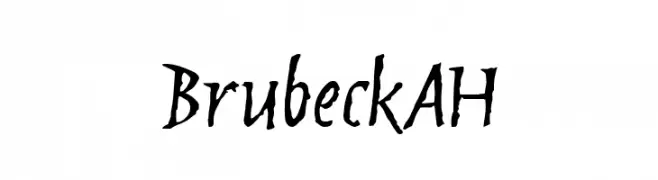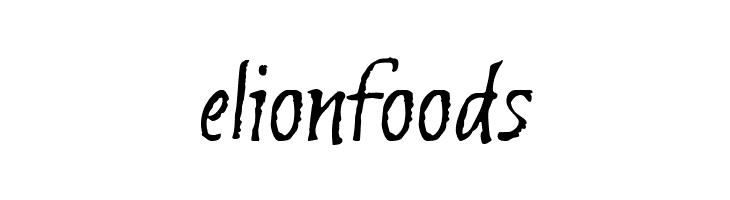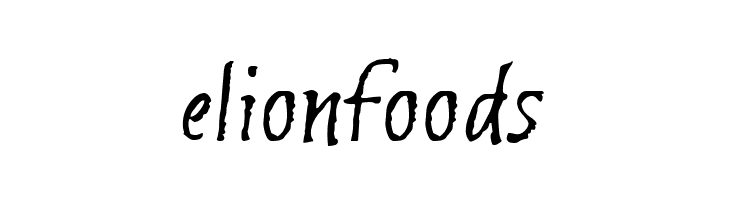
• BrokenSansCaps
A bold, fragmented sans-serif font with a modern, edgy aesthetic.
• BrokenSansCapsJumper
A bold, fragmented font with geometric shapes and high contrast, perfect for artistic projects.
• Brrr
• Brrritty
• Brubeck AH
A hand-drawn, artistic font with irregular strokes and a dynamic appearance.
• Brubeck AH
A dynamic, expressive handwritten font with irregular, organic strokes.
• BubbleBoy2
A modern, rounded font with smooth, elongated characters and consistent stroke width.
• Bugeater
A bold, distressed font with insect silhouettes and a grunge aesthetic.
• Bullfrog
• Bullpen